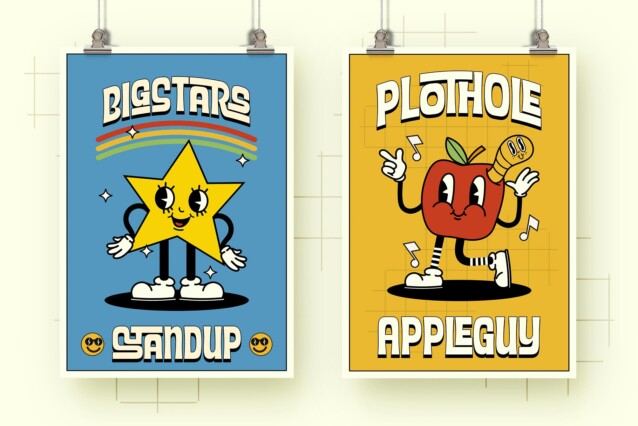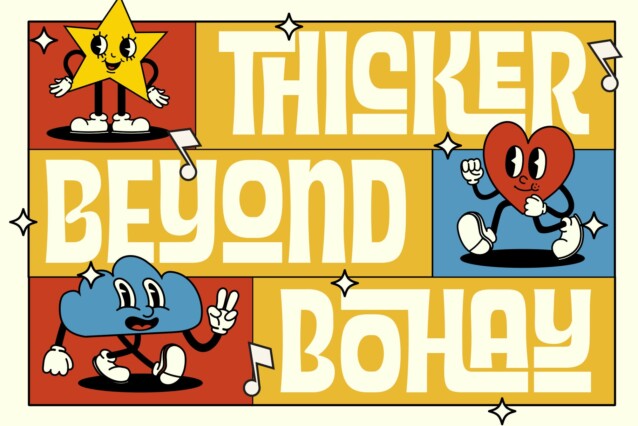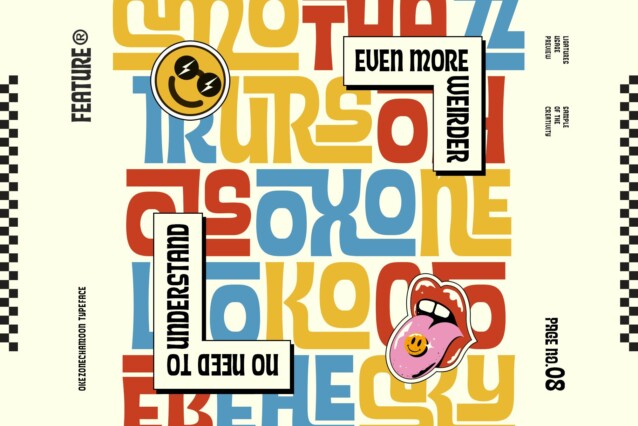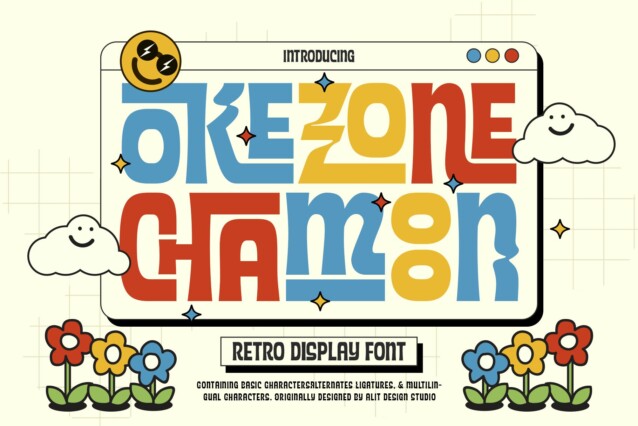
Okezone Chamoon Font
Okezone Chamoon Font is a striking display font that exudes a sense of boldness and vintage charm. This font is the perfect blend of retro 80s style, funky cartoon vibes, and a dash of modern flair. With its wavy lines, extensive ligature options, and a whopping 758 characters, Okezone Chamoon is the ultimate choice for designers looking to infuse a playful and nostalgic touch into their projects.